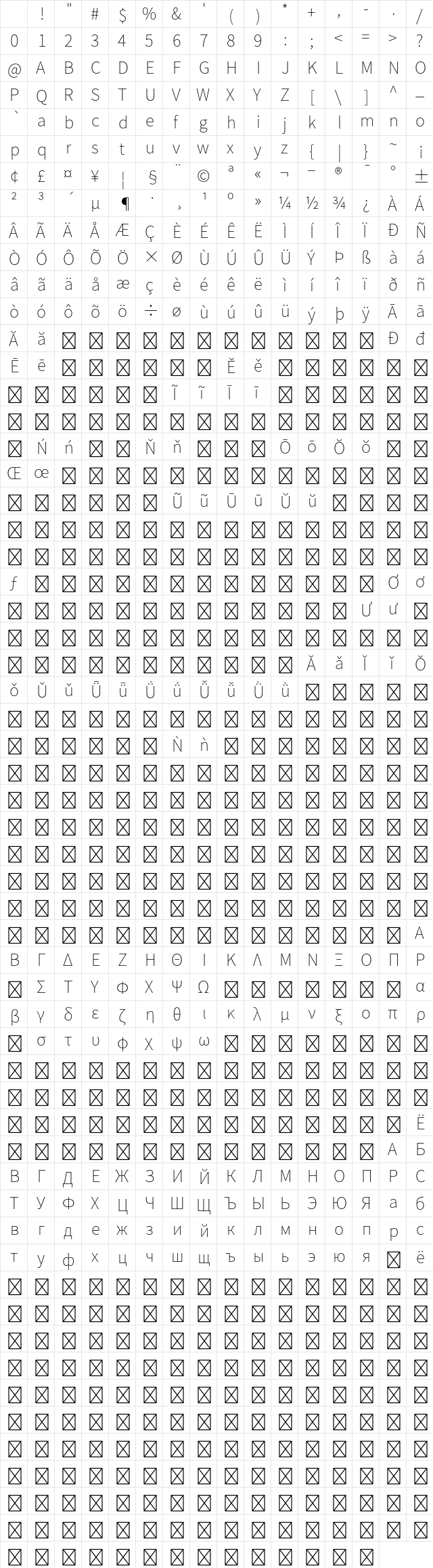
Noto Sans CJK KR Thin Regular
Designer: Ryoko NISHIZUKA (kana & ideographs); Paul D. Hunt (Latin, Greek & Cyrillic); Wenlong ZHANG (bopomofo); Sandoll Communication, Soo-young JANG & Joo-yeon KANG (hangul elements, letters & syllables)
Design Context for Noto Sans CJK KR Thin
Noto Sans CJK KR Thin is a composed and adaptable typeface that performs quietly and consistently across a wide range of design contexts. Its slender proportions lend an understated elegance to any composition.